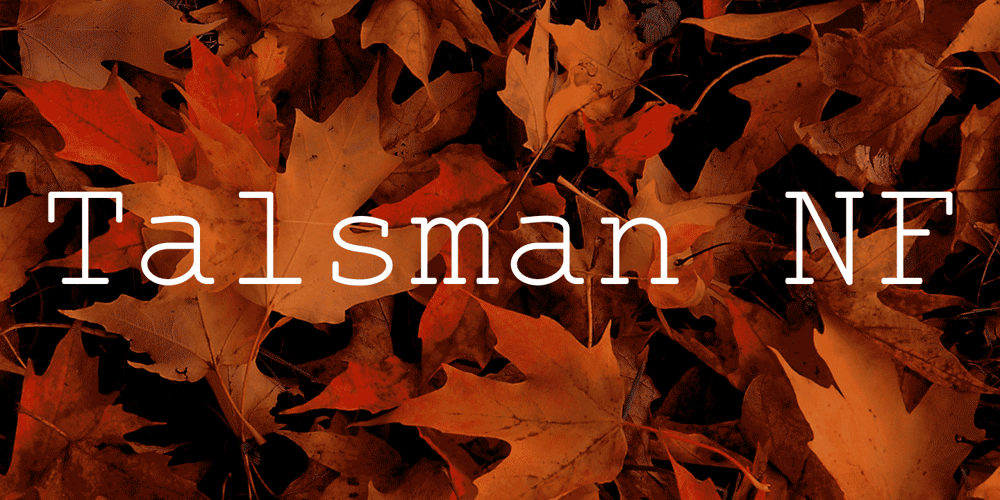
Talsmann NF Font Family was designed by Nick Curtis and published by Nick’s Fonts. Talsmann NF contains 1 styles and family package options. Plain and simple, here’s a faithful reproduction of the Advocate font for IBM Selectric typewriters from the 1960s. Both versions support the Latin 1252, Central European 1250, Turkish 1254 and Baltic 1257 codepages.